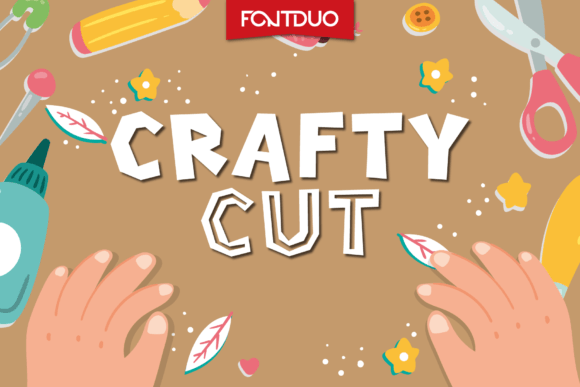
Discover the Joy of Crafting with Crafty Cut Font
Have you ever been in the midst of a creative project, and suddenly, the perfect font pops into your head, elevating your design from good to great? This is exactly what happened to many designers when they stumbled upon the Crafty Cut Font. This adorable display font is more than just a pretty face – it’s a versatile tool designed to bring a smile to your audience’s faces.
Whether you’re a seasoned designer or a crafty hobbyist, the Crafty Cut Font is the perfect addition to your toolkit. With its friendly and approachable style, this font is perfect for crafting, digital design, presentations, or making greeting cards. Its value lies in its ability to add a touch of warmth and personality to any project, making it a valuable asset for designers looking to create memorable and engaging designs.
Crafty Cut Font Key Features
- Unique Characteristics: The Crafty Cut Font features a unique, hand-drawn design with intricate details and textures, giving it a distinct and eye-catching appearance.
- Character Set: The font includes a comprehensive set of characters, including uppercase and lowercase letters, numbers, punctuation marks, and special characters, making it suitable for a wide range of applications.
- Language Support: The Crafty Cut Font supports multiple languages, including English, Spanish, French, German, Italian, Portuguese, and many more, making it a great choice for international projects.
- Font Styling: The font offers a range of font styles, including regular, bold, italic, and bold italic, allowing users to customize the look and feel of their text to suit their needs.
Crafty Cut Font Review
Overall, I’m impressed with the unique style of Crafty Cut Font. It’s a great choice for designers looking for something quirky and fun. Here are some aspects that I think work well: ✨
- Unconventional character shapes: The font’s hand-drawn feel and unusual letterforms make it stand out from more traditional fonts.
- High level of customization: The font includes a wide range of glyphs and ligatures, allowing designers to fine-tune the look to suit their project.
- Friendly and approachable tone: Crafty Cut Font feels approachable and down-to-earth, making it perfect for projects that need a relaxed, casual vibe.
- Limited legibility: The font’s unique style can sometimes make it hard to read, especially in larger sizes or when used in body text.
- Not ideal for formal projects: Crafty Cut Font is best suited for casual, creative projects – it may not be the best choice for formal or professional designs.
Overall, I think Crafty Cut Font is a great choice for designers who want to add some personality to their projects. While it may not be perfect for every use, it’s a fun and versatile font that can add a lot of character to the right design.
Some popular use cases for Crafty Cut Font include:
- Printed materials such as business cards and brochures.
Yes, Crafty Cut Font is a highly customizable font family that includes a range of styles, weights, and ligatures. You can use font editors like FontLab or Glyphs to customize the font to fit your specific design needs. Additionally, the font includes a range of OpenType features, such as contextual alternates and swashes, that can be used to add unique flair to your designs.